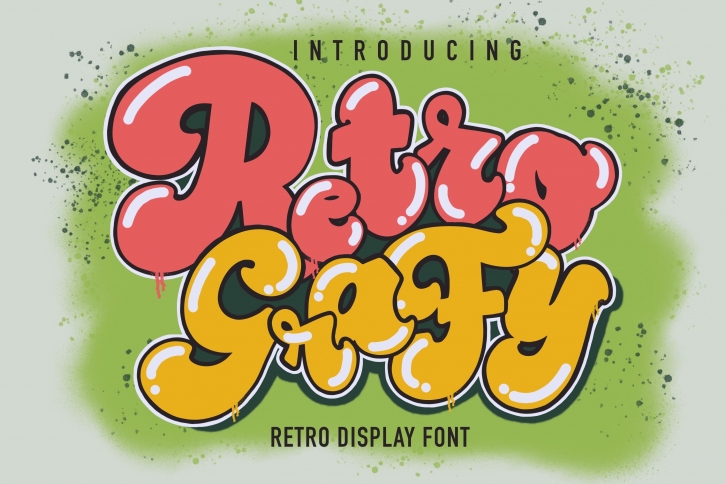
Retro Grafy is an incredibly cool and bubbly display font. It embodies playfulness and authenticity and is the perfect choice for any children activity or school project